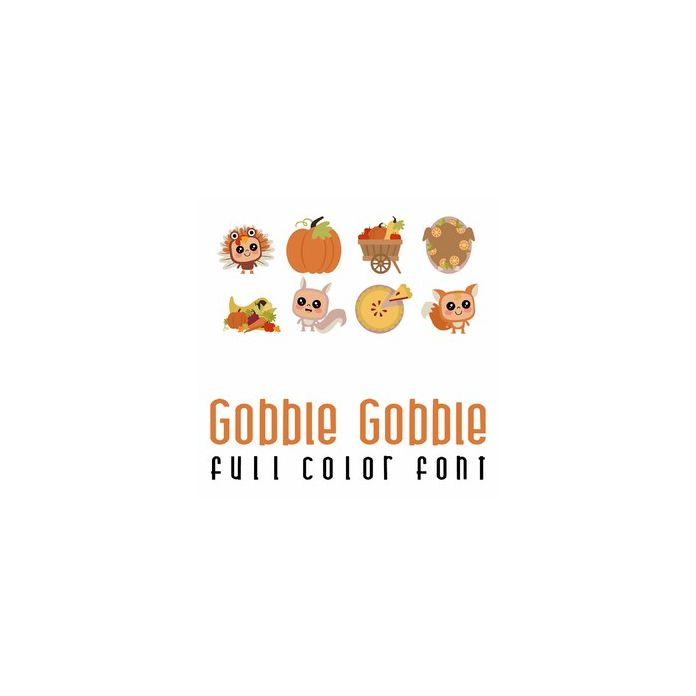
This adorable full color doodlebat font features beautiful Autumn and Thanksgiving imagery. Perfect for cards, crafts, gifts, decor, scrap book pages, planner stickers and more!